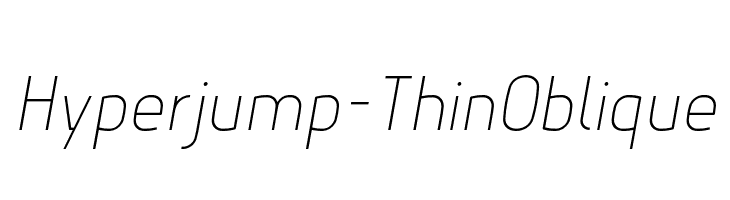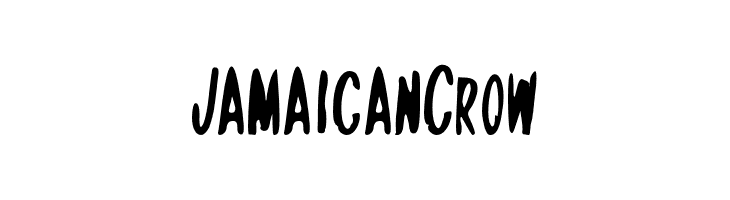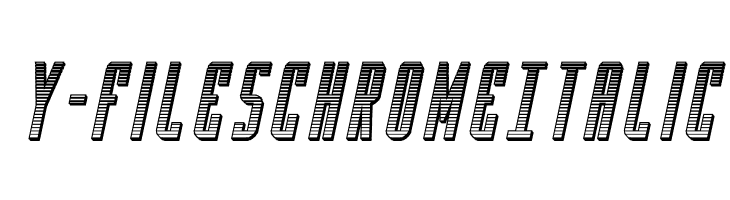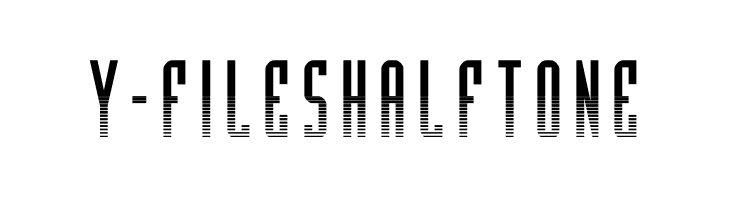
A sleek, thin, and oblique font with a modern and dynamic appearance.
A bold, futuristic font with angular lines and a dynamic slant.
A bold, expressive handwritten font with dynamic strokes and a brush-like texture.
A modern, halftone-style font with horizontal line gradients.